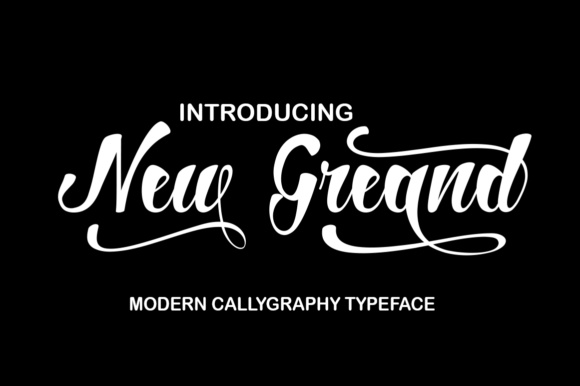
Introducing New Greand Script — the font that captures the spirit of creativity and breathes life into your designs. This elegant script font exudes a charm that is both timeless and utterly modern. Its meticulously crafted characters dance across the page, leaving a trail of inspiration in their wake.
With its fresh and modern style, New Greand Script is more than just a font — it's an expression of individuality. Its handmade calligraphy, decorative characters, and graceful lines bestow a sense of refined elegance upon every project. Whether you're creating invitations, branding materials, business cards, or any other creative endeavor, New Greand Script will elevate your designs to new heights.
Unleash your imagination and let New Greand Script weave its magic into your work. This font is the perfect companion for those who seek a touch of sophistication and a dash of whimsy. Its versatility knows no bounds, adapting effortlessly to a wide range of design styles from classic to contemporary.
Embrace the beauty of New Greand Script and watch as your creative visions come to life. Its enchanting aura will captivate your audience, leaving them breathless with wonder. Step into a world of boundless creativity and let New Greand Script guide you on an artistic adventure like no other.